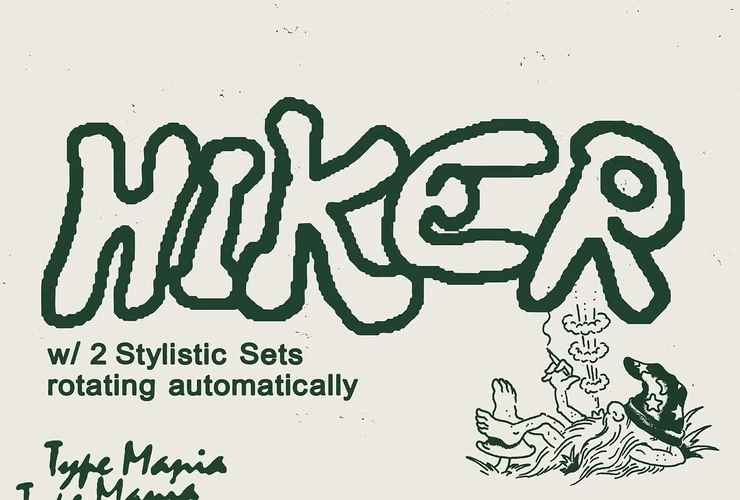
Introducing Hiker TM – The Quirky Script Font by Type Mania
Hiker TM, crafted by Type Mania, is a distinctive and unconventional handwriting font perfect for adding a unique touch to your design projects. With its underground vibe, Hiker TM is ideal for flyers, posters, branding, and campaigns that align with its edgy aesthetic. This font brings a smoked-out, laid-back feel that is sure to make any design stand out.
Key Features of Hiker TM
Hiker TM is designed to offer a quirky and versatile handwriting style. Here are some of its standout features:
OpenType Features: Equipped with 2 stylistic sets, the font is programmed to automatically shift between these sets for a dynamic look.
Extensive Glyph Set: Contains 382 glyphs, supporting Basic Latin, Western European, Euro, Central European, and Pan African Latin languages.
Unique Aesthetic: Perfect for creating eye-catching flyers, posters, branding materials, and campaigns.
Versatile Uses for Hiker TM
Hiker TM is designed to enhance a variety of creative projects with its quirky and distinctive style. Here are some ideas on how to use this unique script font:
Flyers: Create attention-grabbing flyers for events, concerts, and promotions.
Posters: Design unique posters that stand out in any setting.
Branding: Develop branding materials that reflect an unconventional and edgy aesthetic.
Campaigns: Perfect for campaigns that require a bold and memorable design element.
Easy to Use
Hiker TM is designed to be user-friendly, with automatic shifting between stylistic sets to add a dynamic and varied look to your text. This makes it easy to create engaging and visually appealing designs without extensive manual adjustments.
Get Creative with Hiker TM
Hiker TM – Quirky Script is more than just a font; it’s a tool for expressing creativity in a unique and unconventional way. Whether you’re designing flyers, posters, branding materials, or campaigns, Hiker TM offers the versatility and distinctiveness needed to make your projects shine.